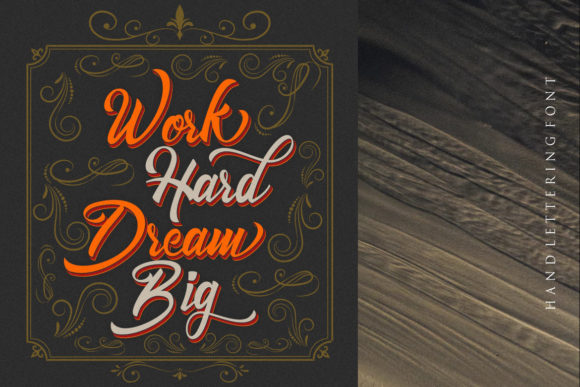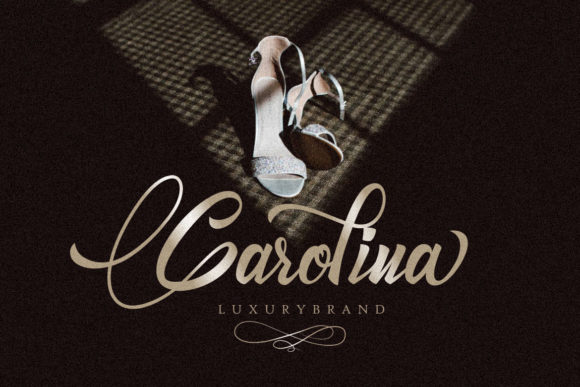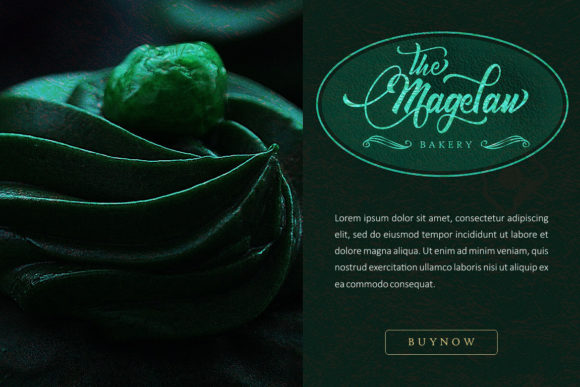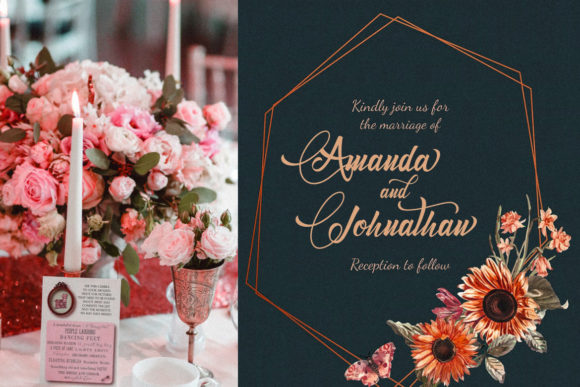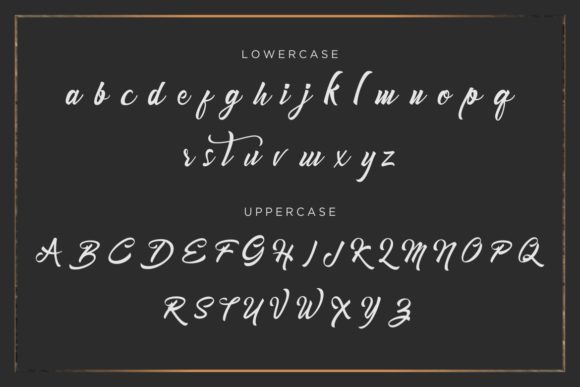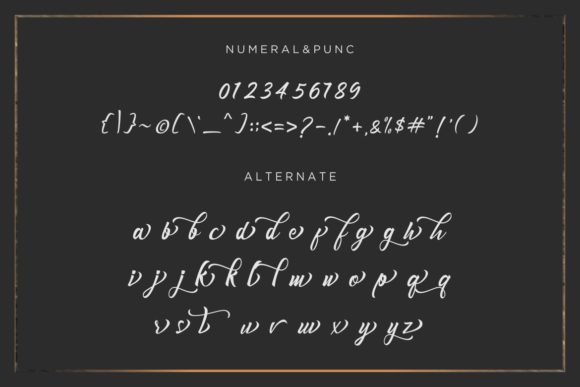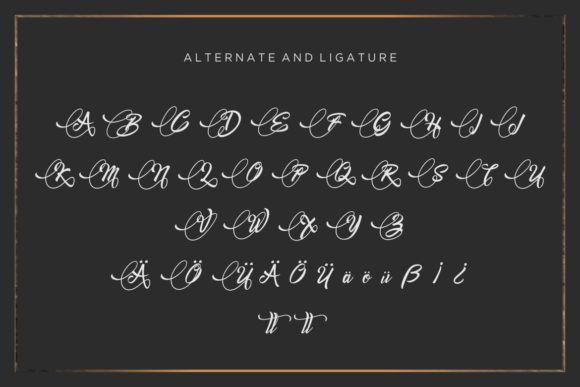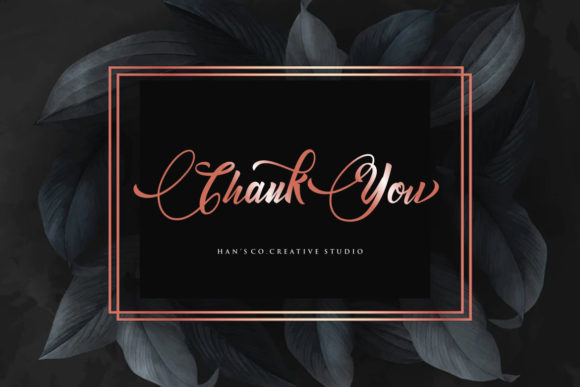
Mondena Font
About Mondena Font
Mondena is a fun and sweet handwritten font with a cool twist. Use it to turn any design project into a true standout!